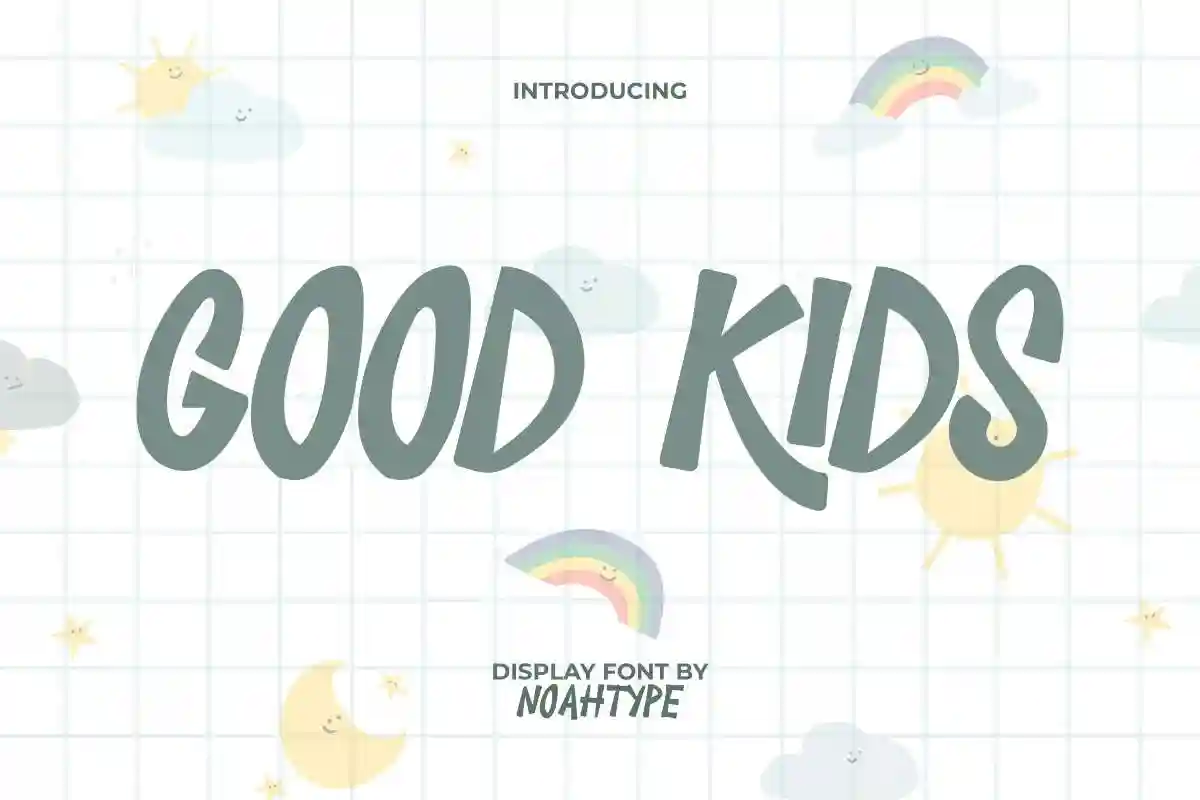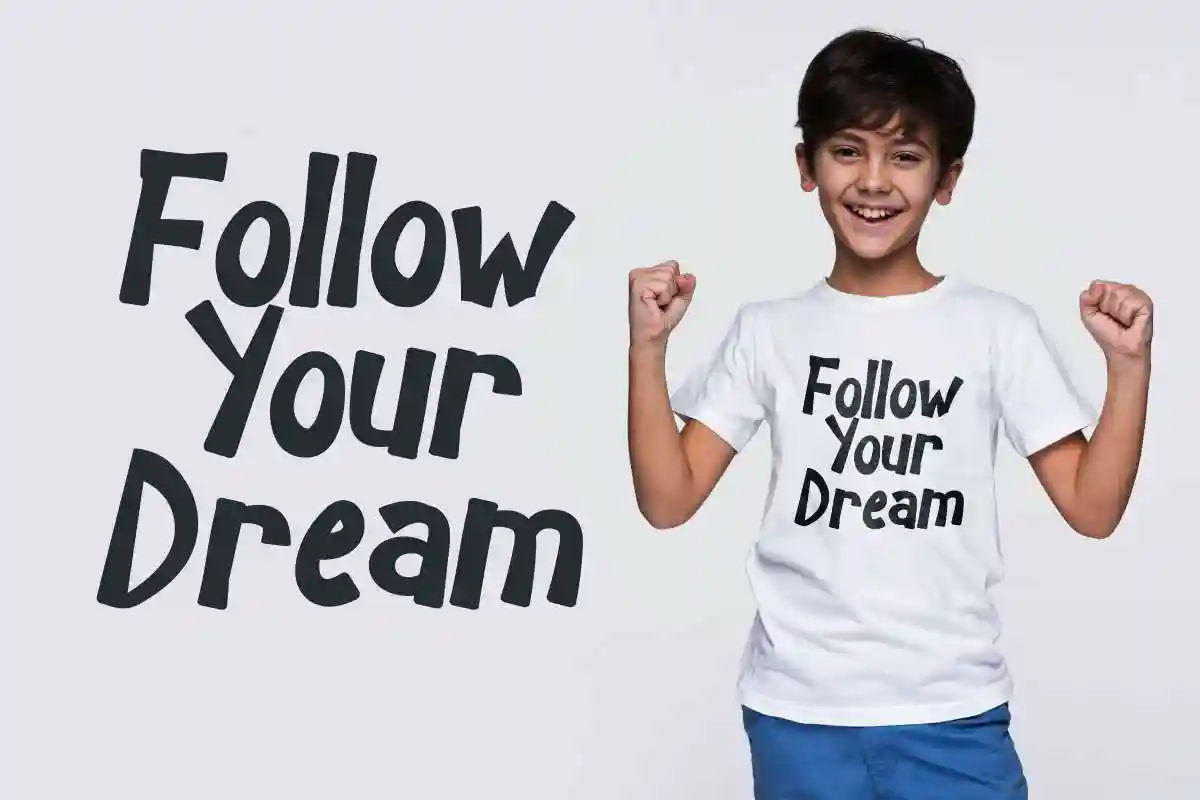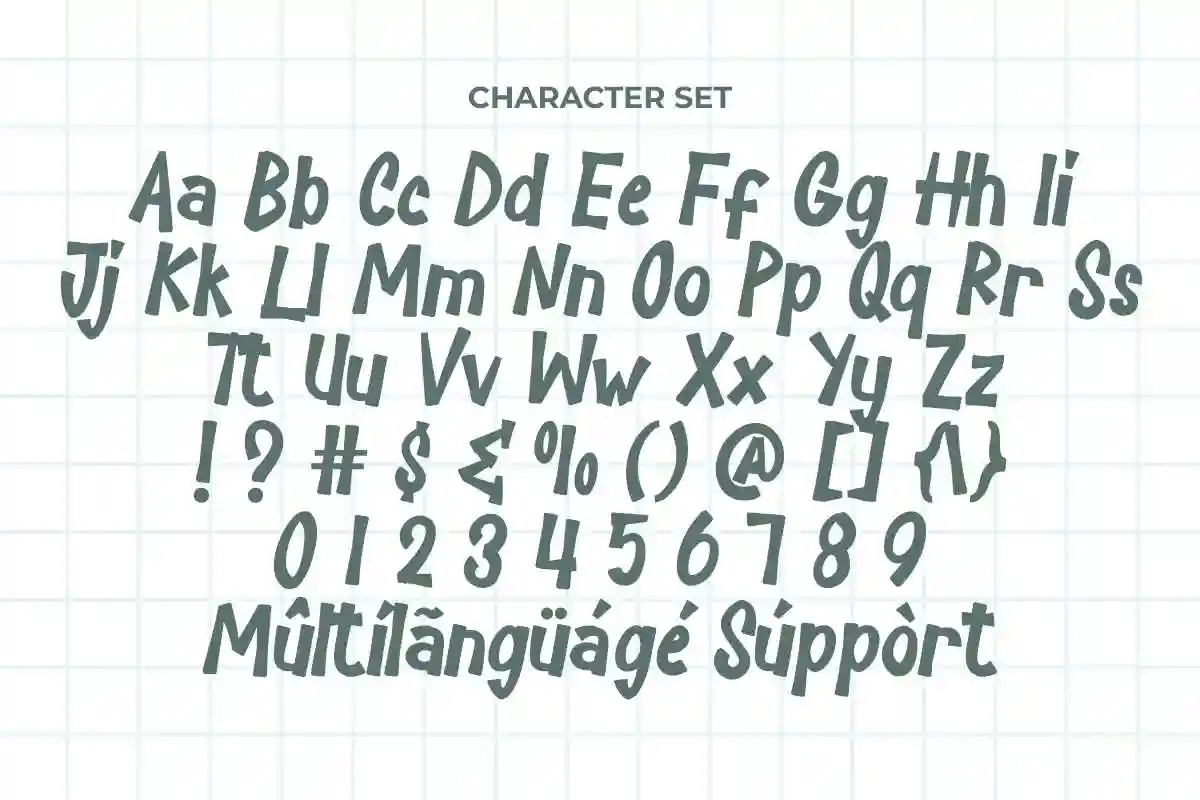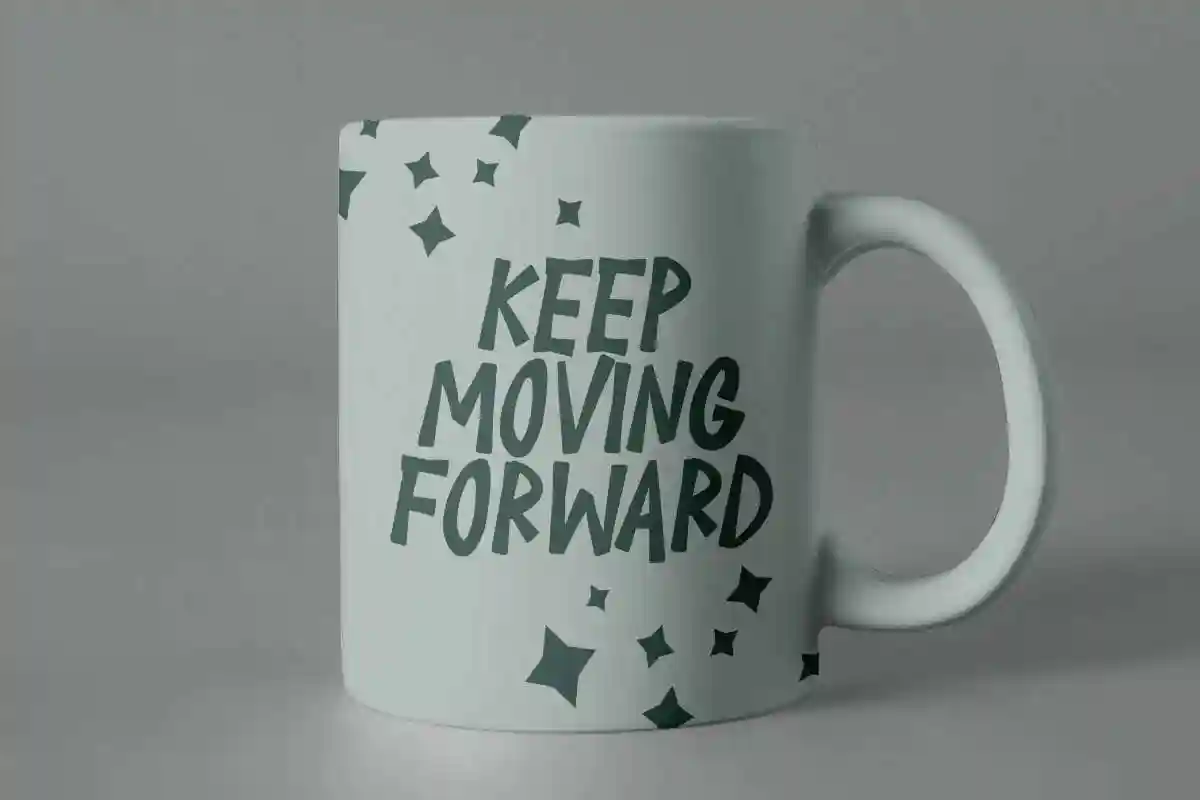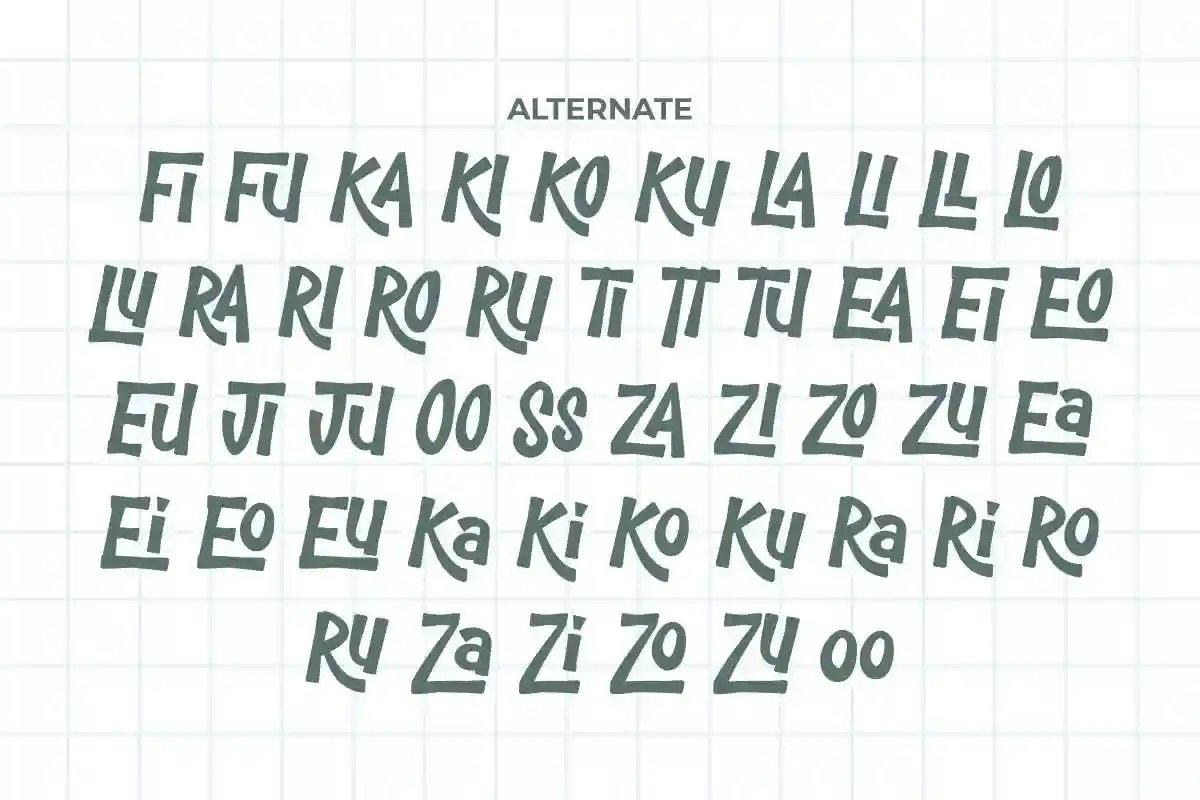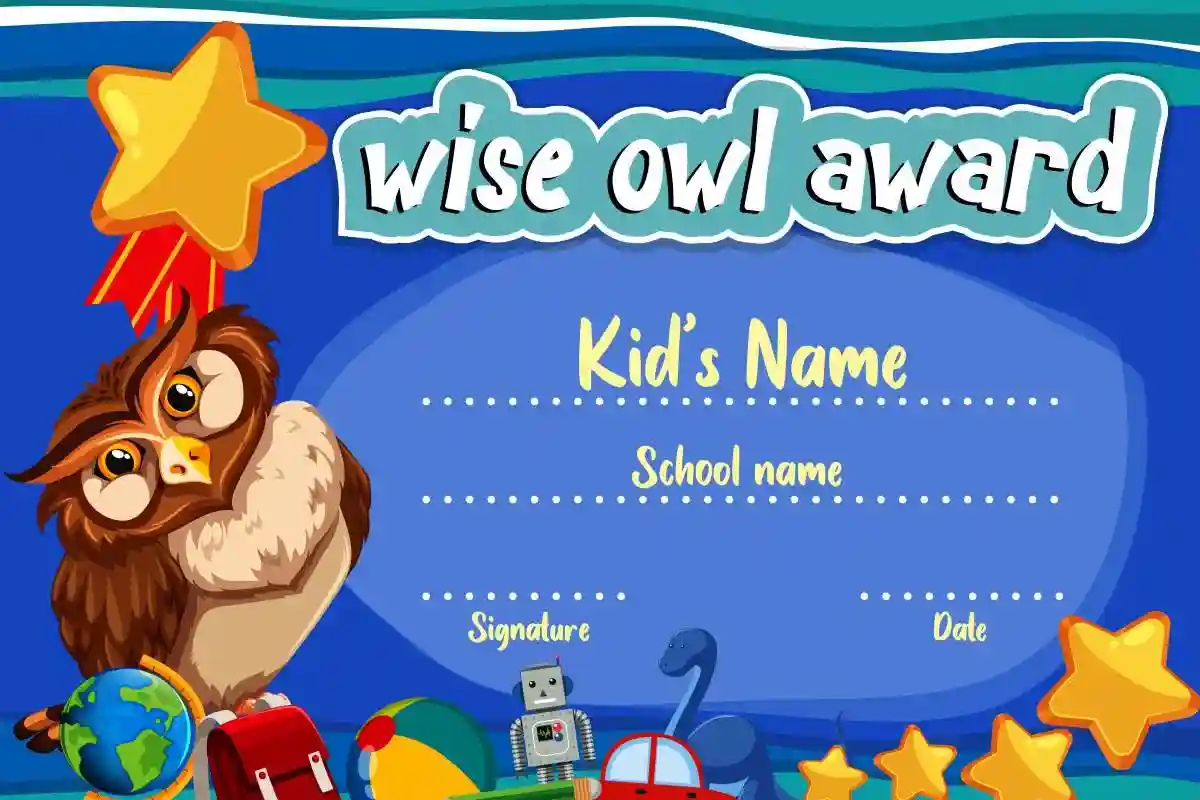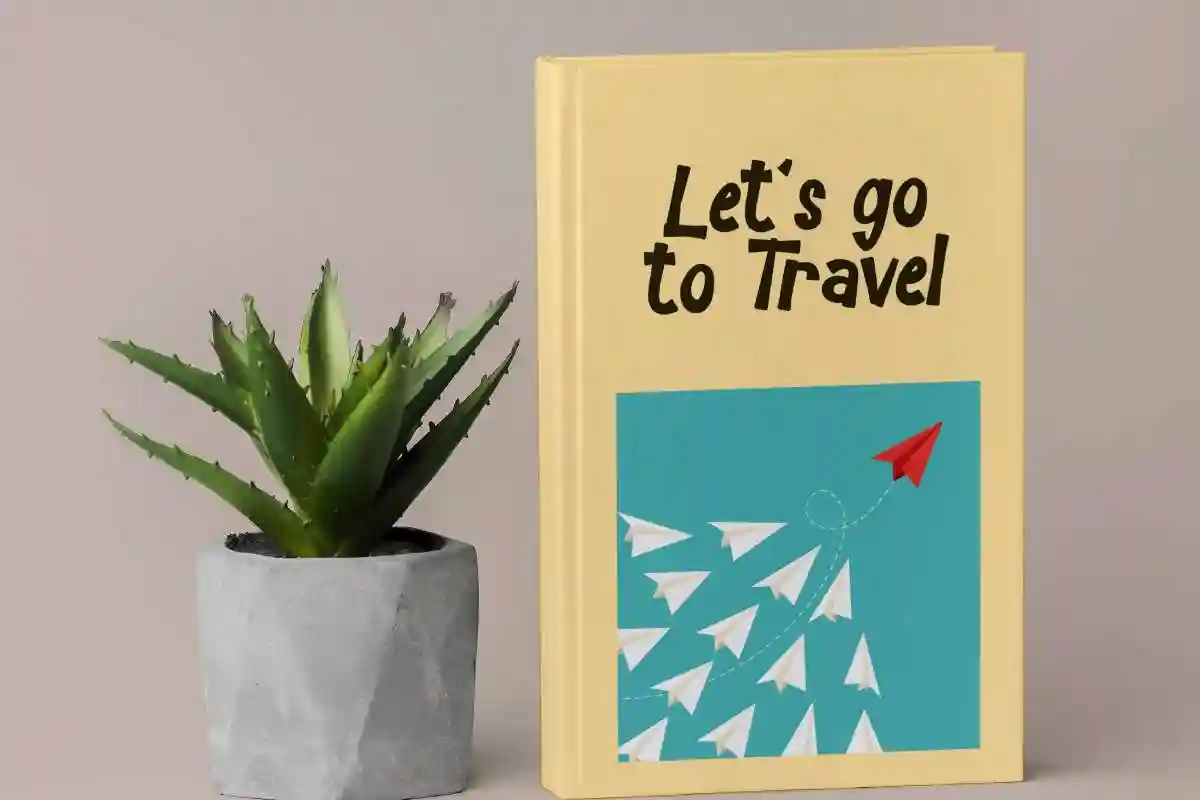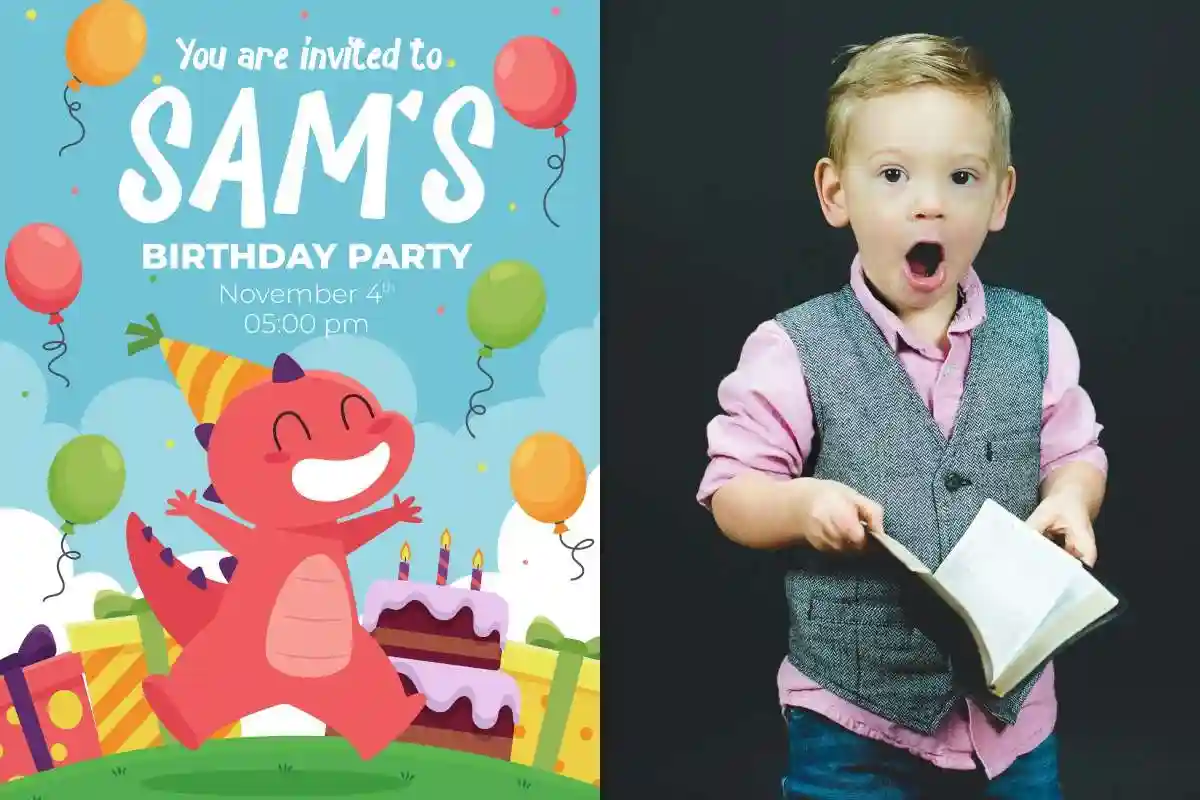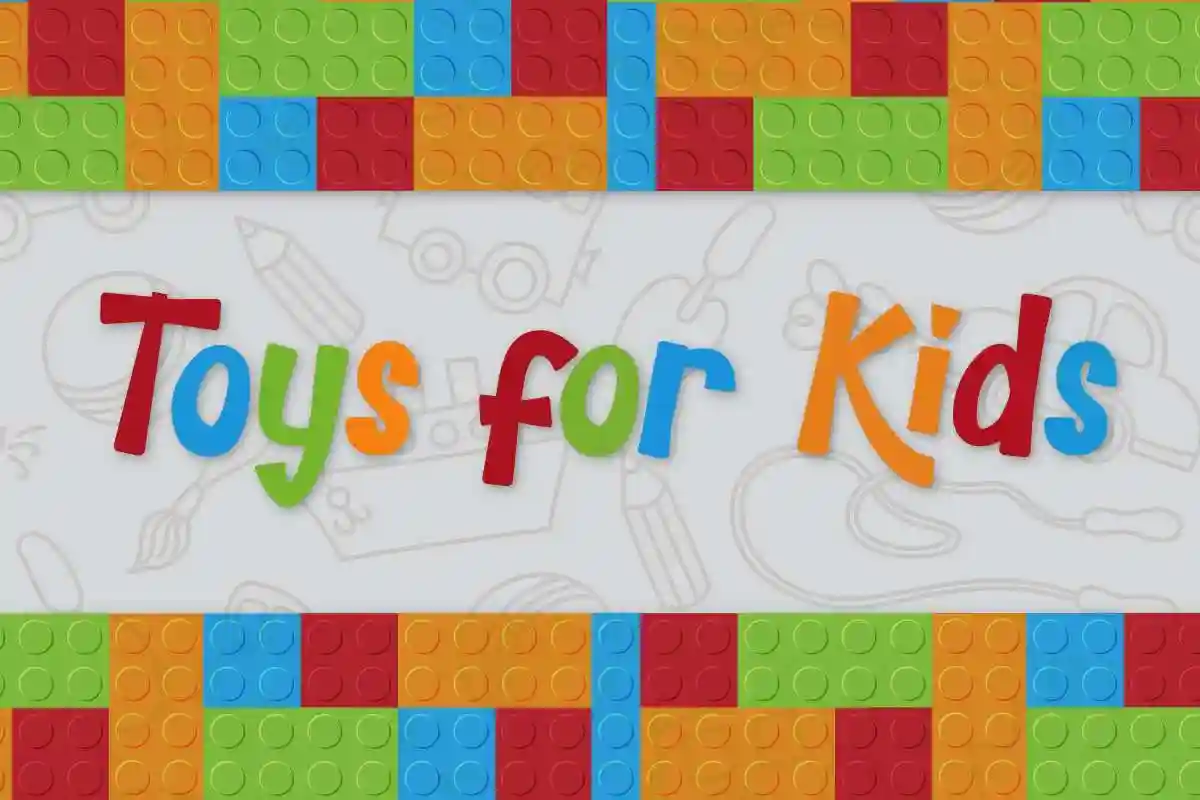
Good Kids Font
Good Kids Font is a display font with cute shapes inspired by kids style. This font is simple and comic style. This font works for businesses or companies such as, fashion, food, games, kids, school, toy etc.
It includes a set of Uppercase and Lowercase Basic Character, Numerals and Punctuation. The font is perfect for many projects, logo branding, product packaging, signage, stationery, title and many more!